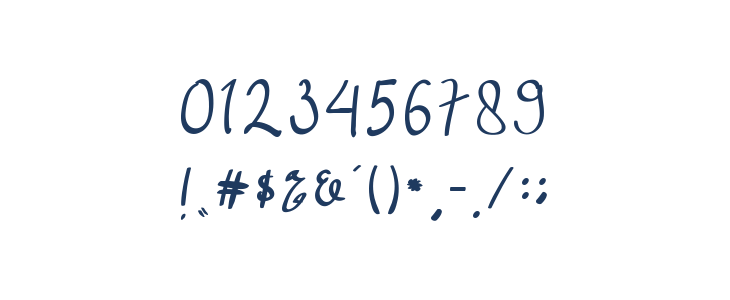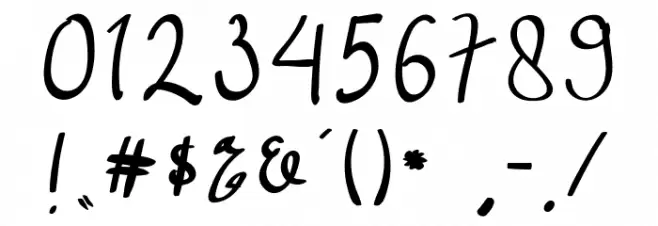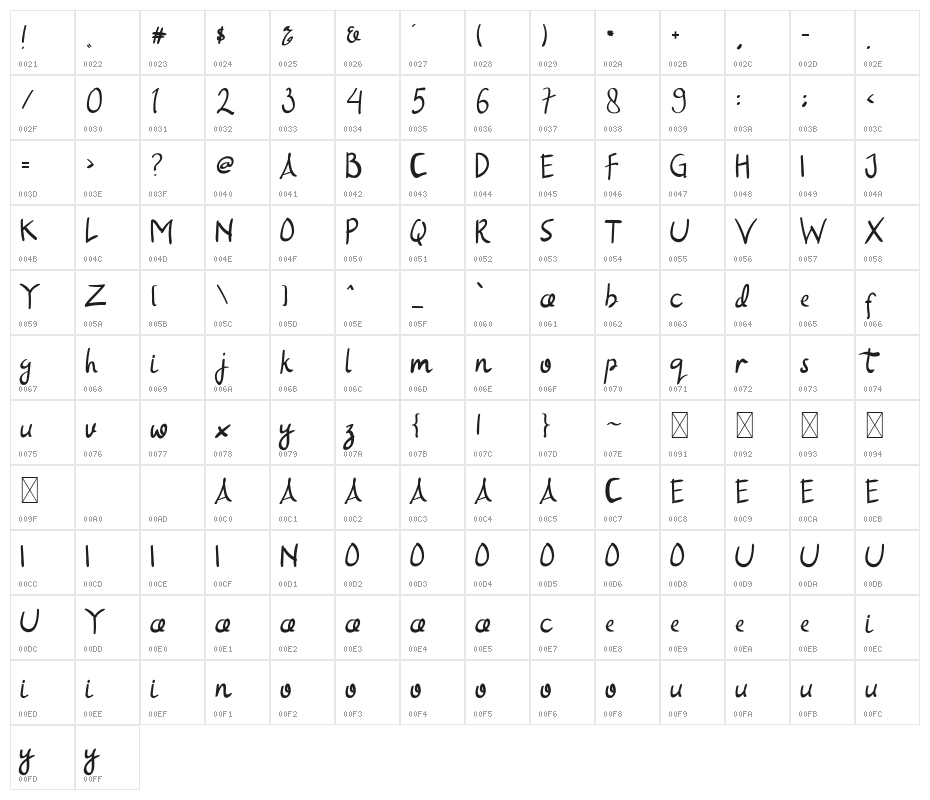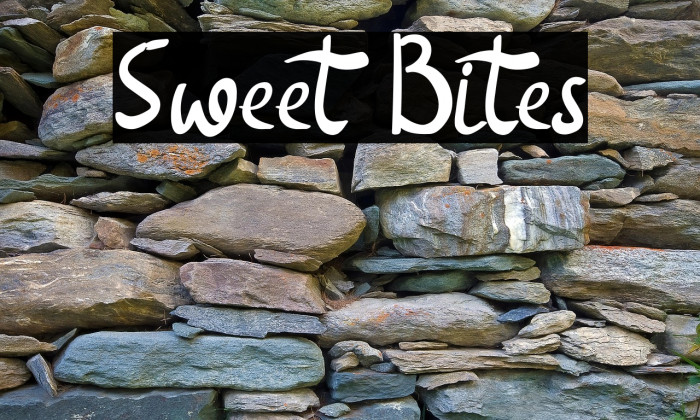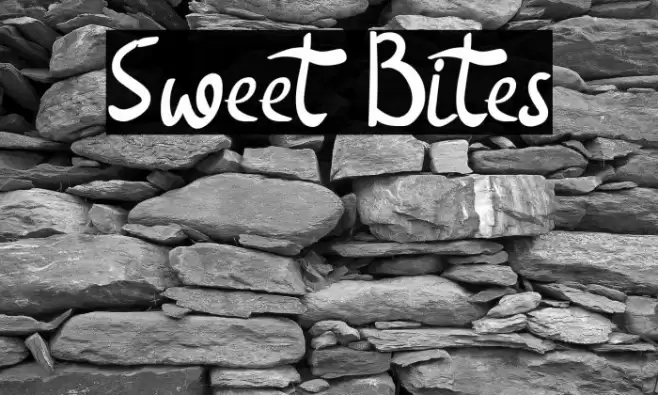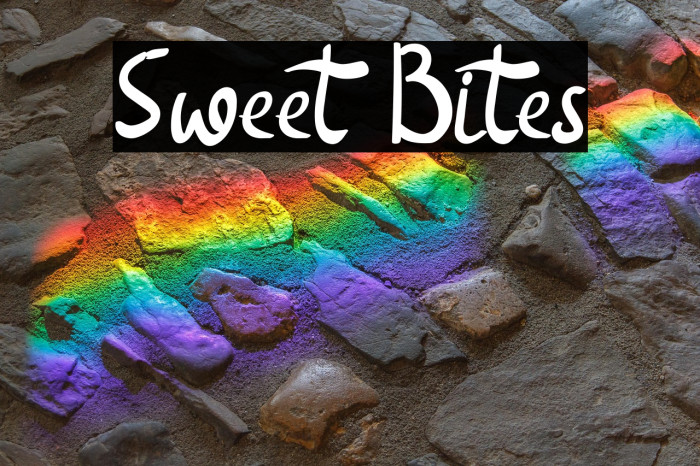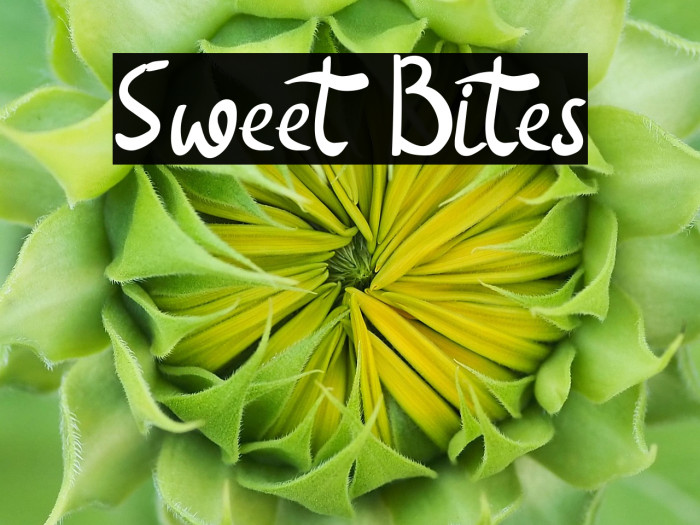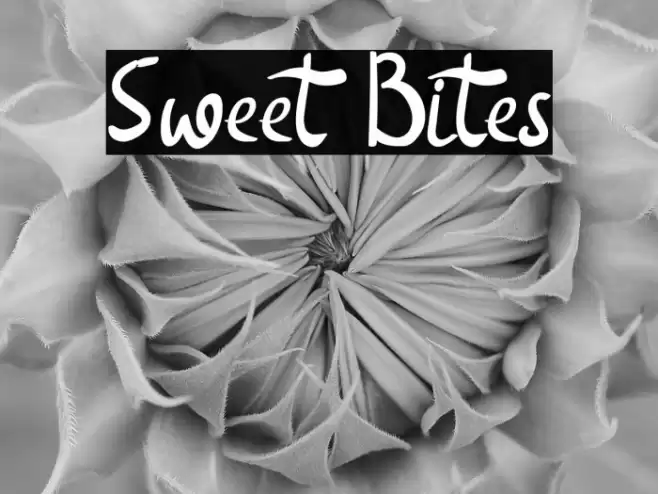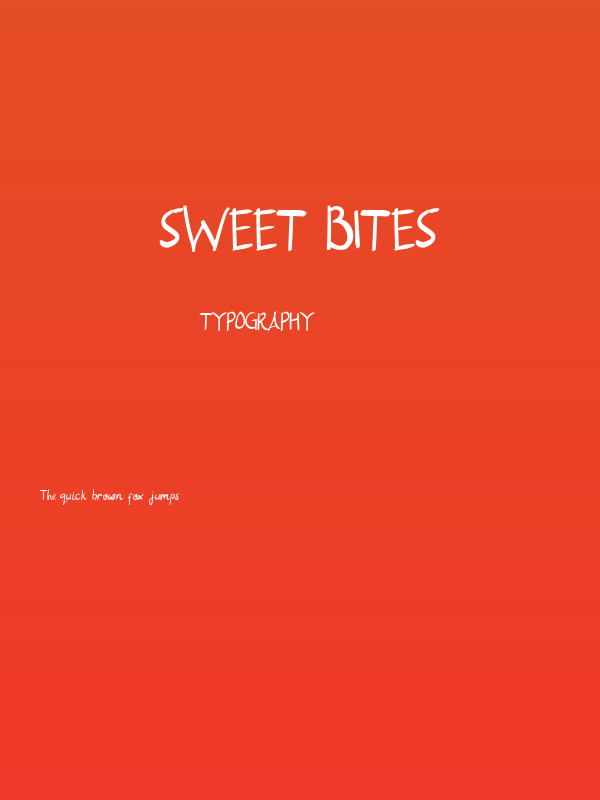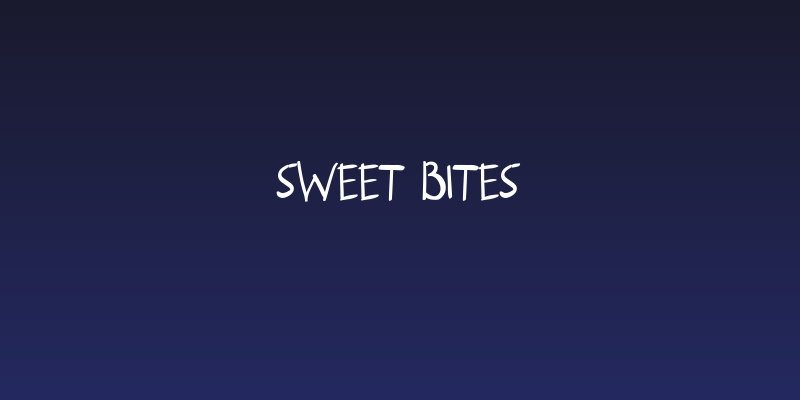
Sweet Bites Font
Sweet Bites Description
This font features a playful and casual handwritten style, characterized by its smooth, flowing lines and slightly irregular shapes. The uppercase letters are bold and dynamic, while the lowercase letters maintain a consistent rhythm with a touch of whimsy. Numbers and special characters are crafted with the same lively energy, making them stand out in any design. The overall appearance is friendly and approachable, perfect for projects that require a personal touch.
| Proposed Projects | Ideal for greeting cards, children's books, playful branding, and social media graphics. |